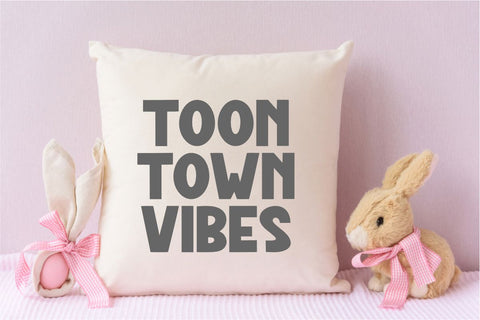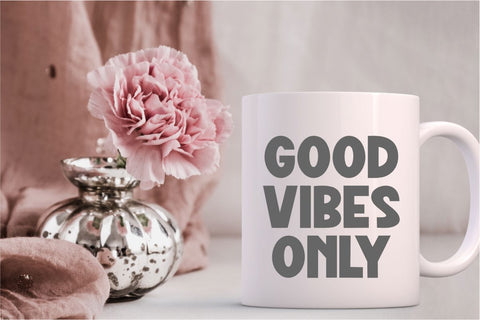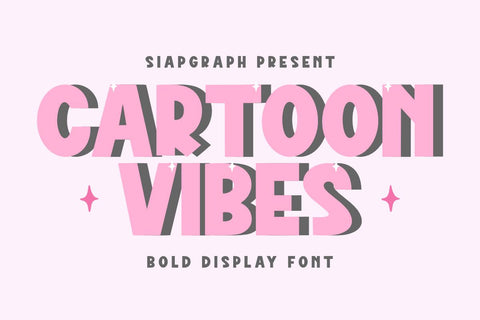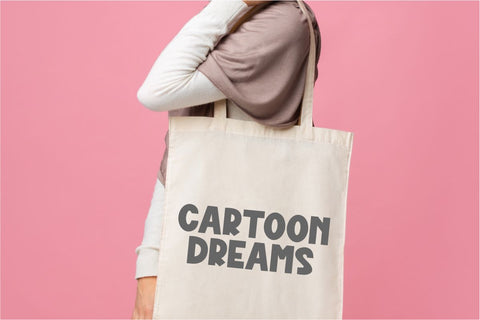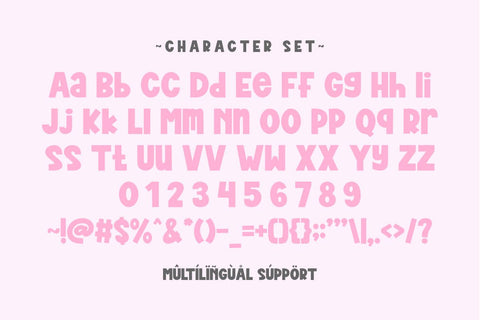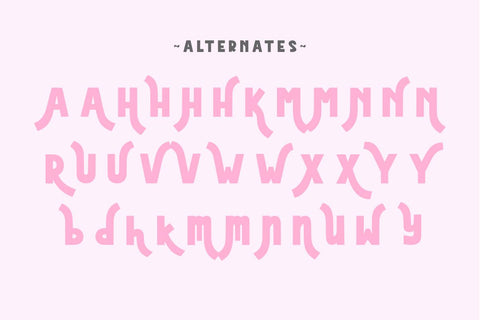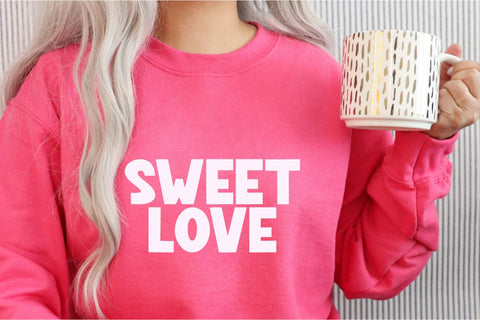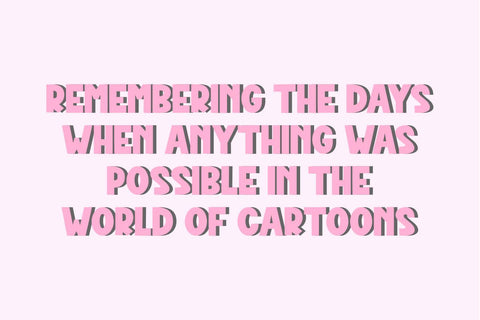
Cartoon Vibes - Bold Quirky Font
Cartoon Vibes is a bold, playful display font with a fun and energetic feel. Designed to bring out a joyful and whimsical aesthetic, this font is perfect for children’s books, comics, branding, social media, merchandise, posters, and more. Its chunky, high-impact letterforms with a subtle 3D shadow effect make it a standout choice for eye-catching designs. Cartoon Vibes radiates positivity and creativity, making it ideal for playful projects that need a vibrant touch.